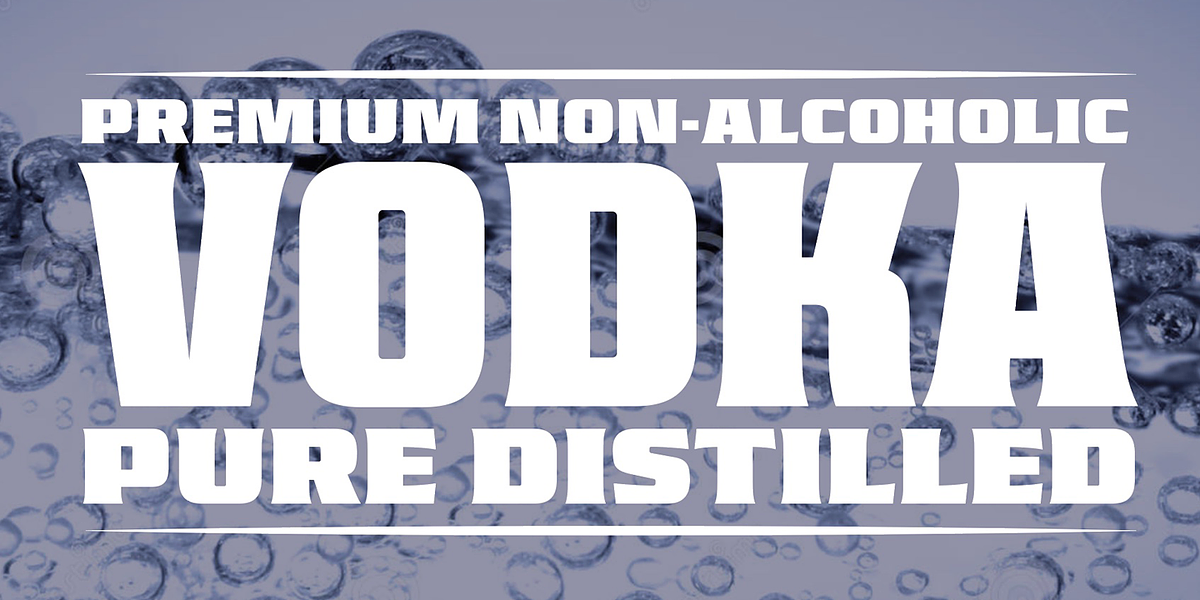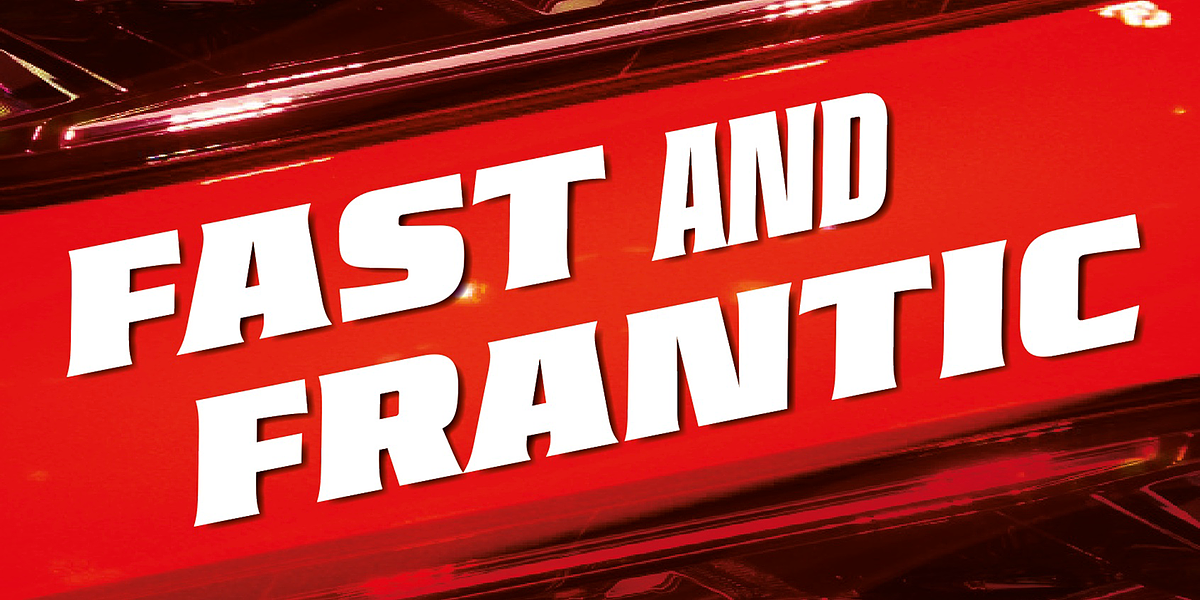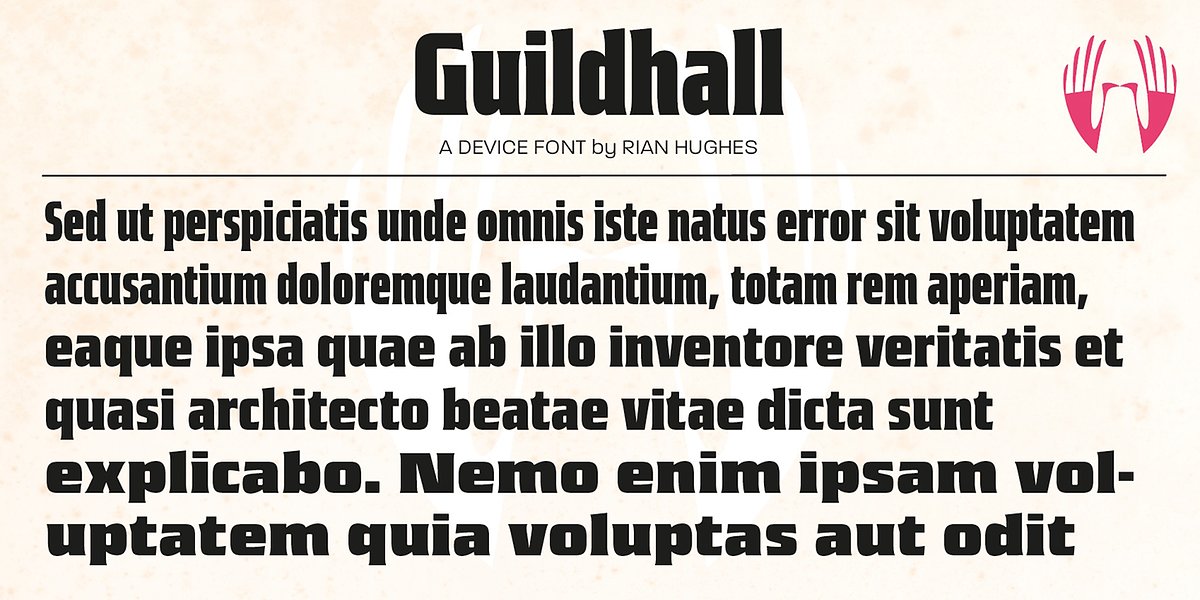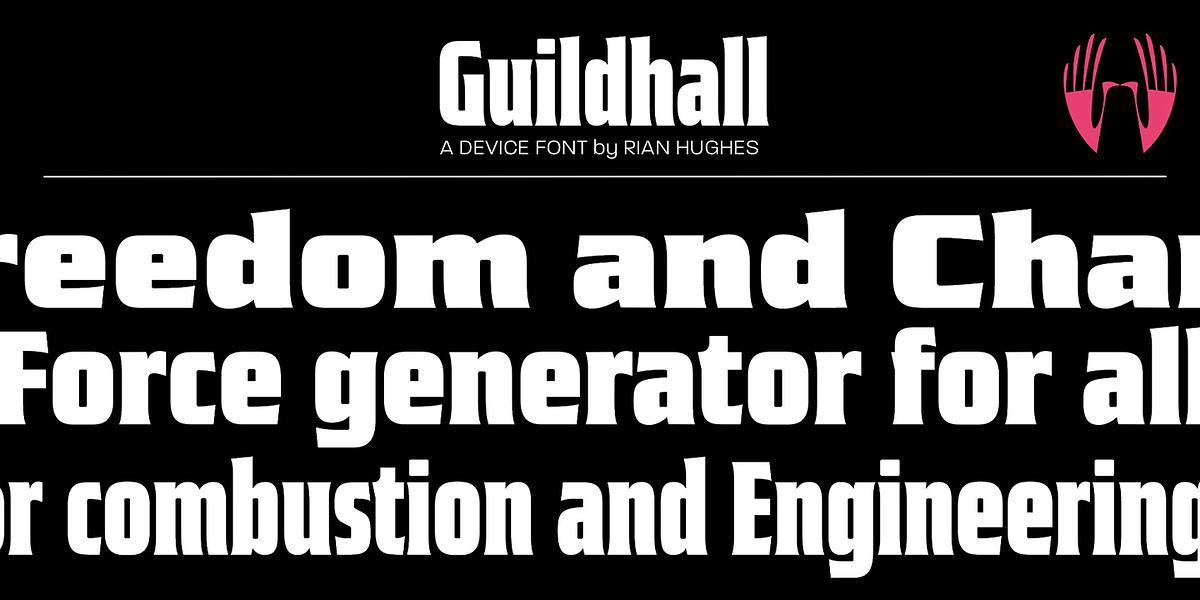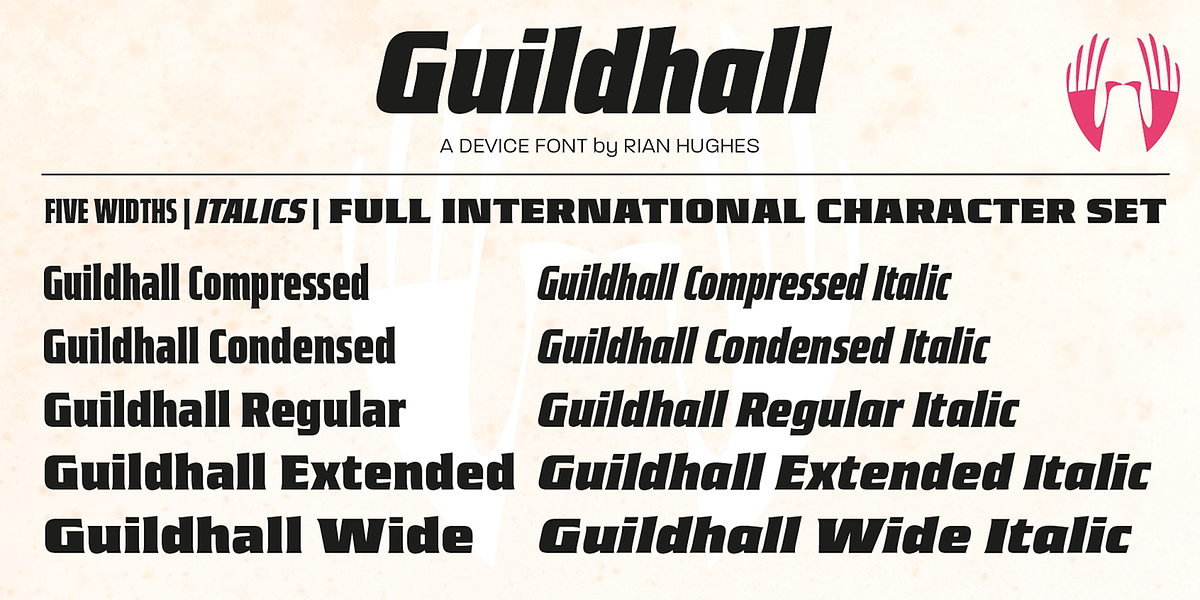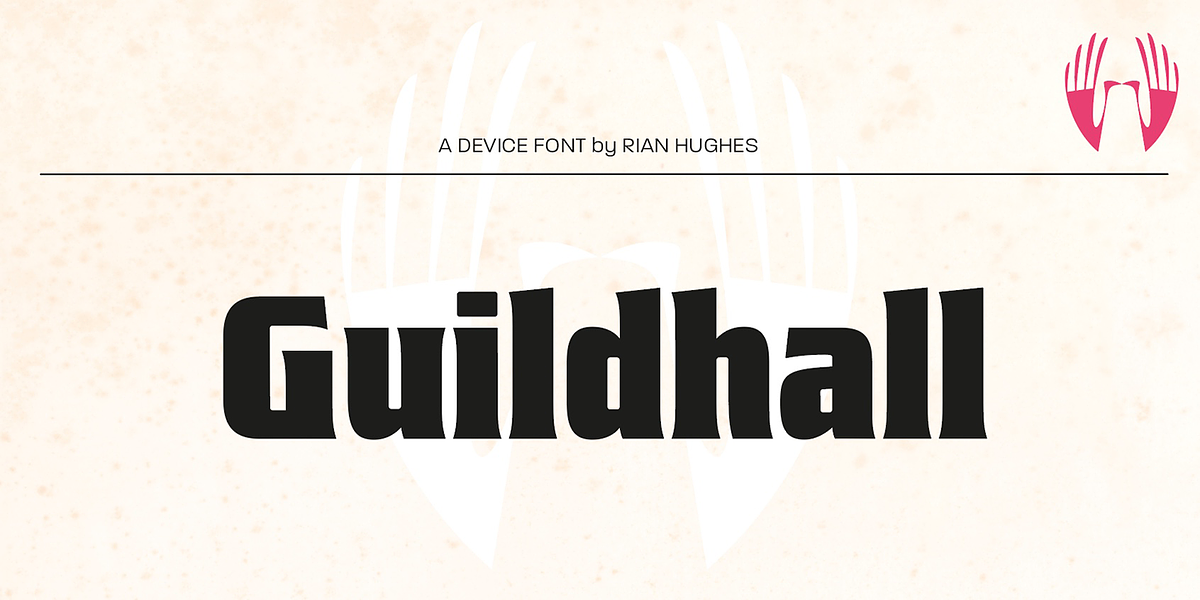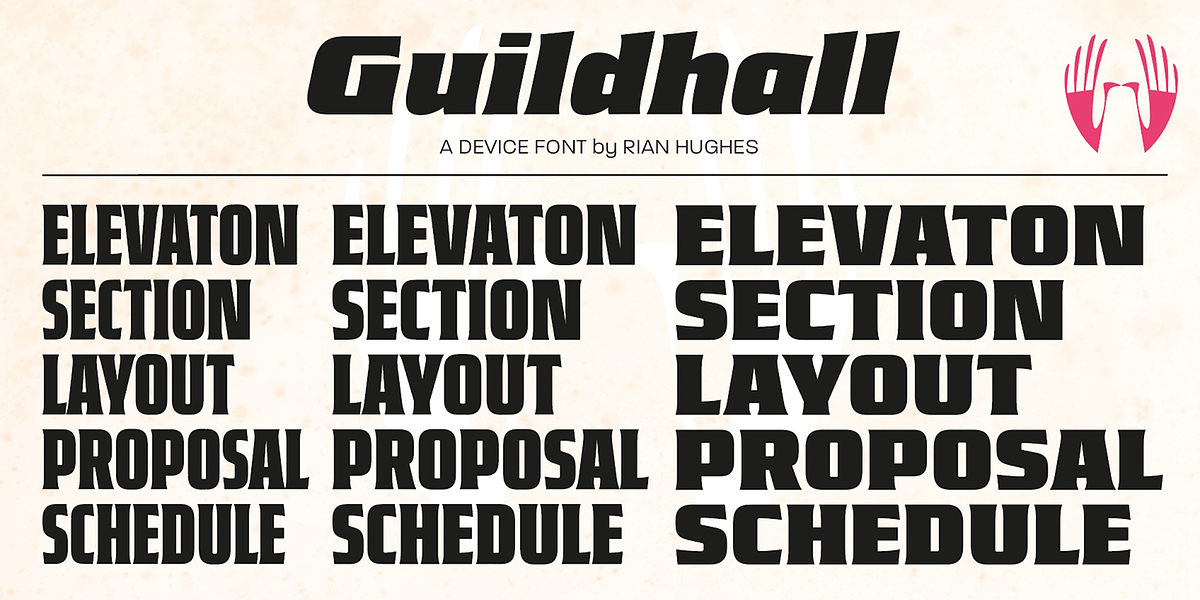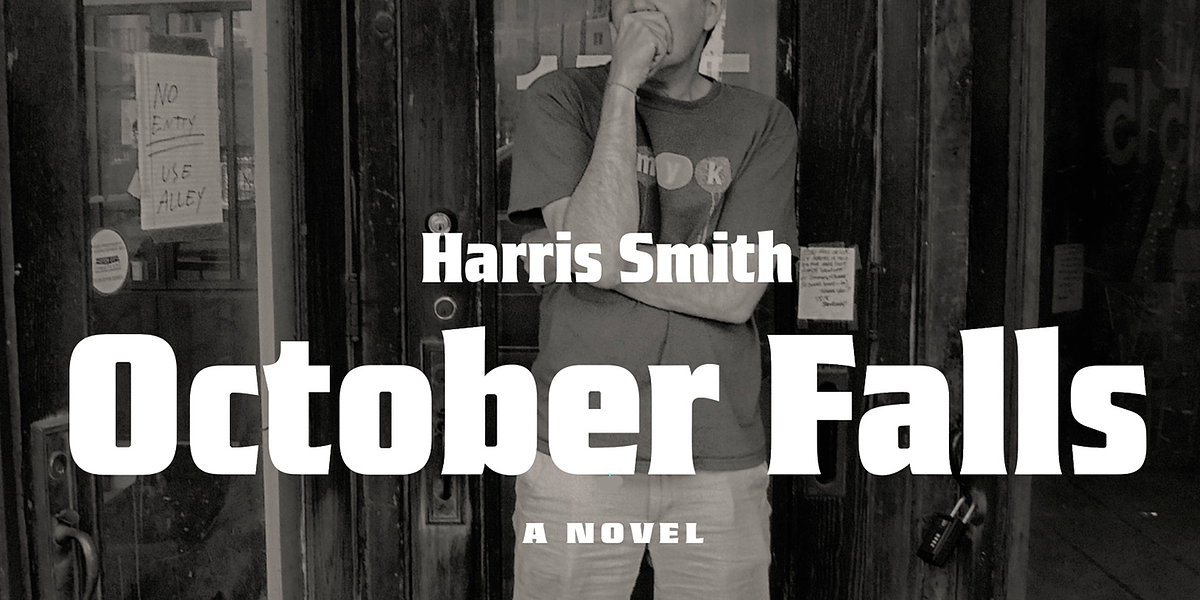
Guildhall
Guildhall is a bold and impactful flared serif font designed for display purposes. Its heavy weight and rectangular forms with pronounced flares make it suitable for applications like film posters, rock concert promotions, band logos, beer labels, packaging design, and magazine headlines.